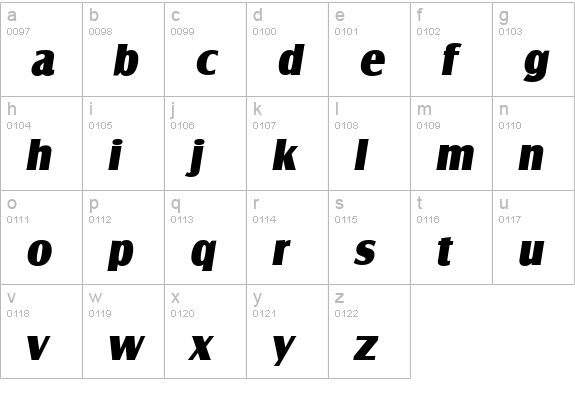
SalzburgSerial-Heavy-Italic is a heavy, high-impact, italic variant in the SalzburgSerial typeface family \xE2\x80\x94 well suited to high-impact headlines, posters, and display advertising.
SalzburgSerial-Heavy-Italic is a stylish and bold font that exudes elegance and sophistication. Its heavy weight and italic design make it perfect for creating eye-catching headlines and standout designs. The sleek curves and unique details of this font add a touch of class to any project, making it a versatile choice for various creative applications. The best part about SalzburgSerial-Heavy-Italic is that it is available for free download at FontsMarket.com. This means you can easily access this stunning font to elevate your designs without any cost involved. Whether you're working on branding, advertising, or any other design project, SalzburgSerial-Heavy-Italic is sure to make a statement and leave a lasting impression. Download it today and add a touch of sophistication to your projects!